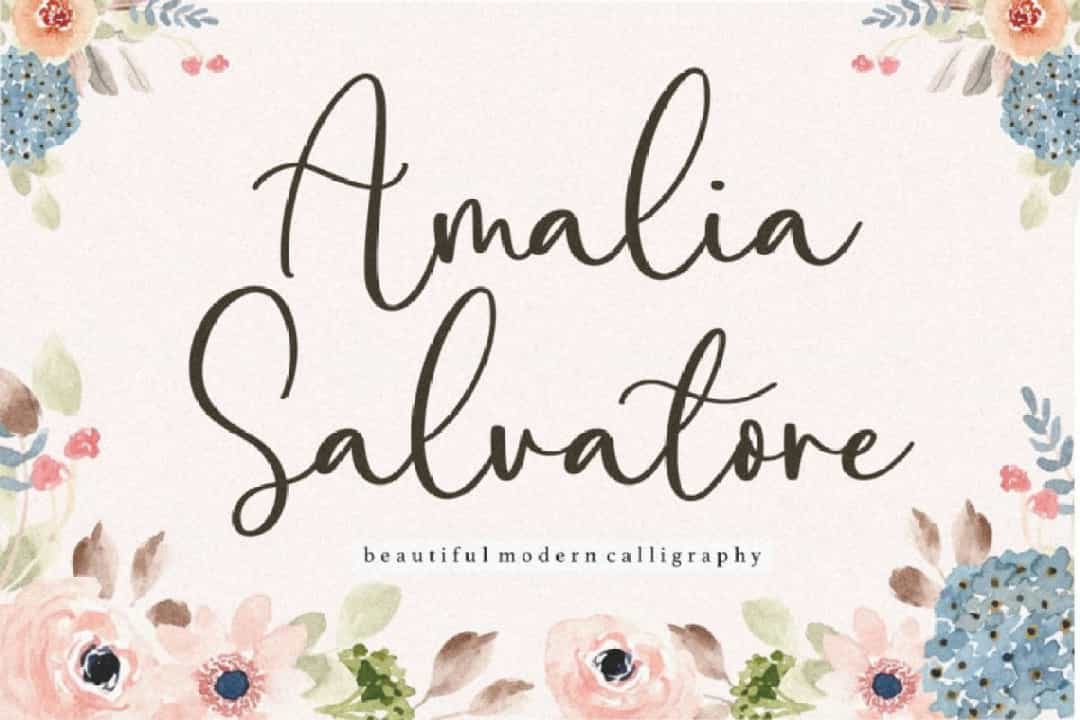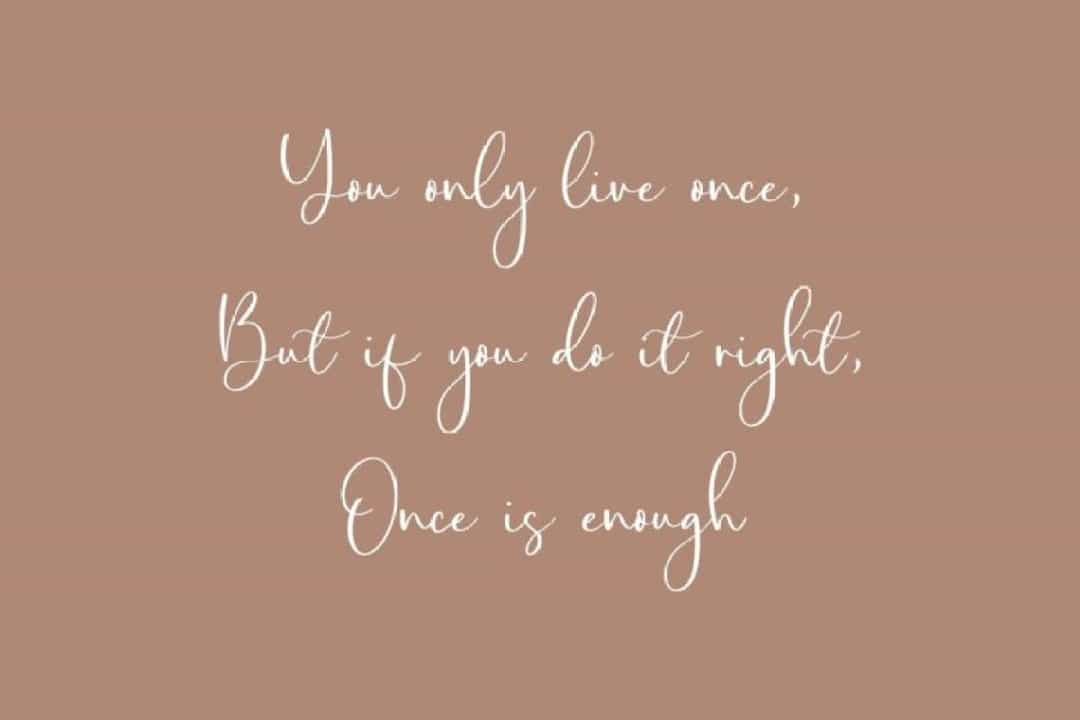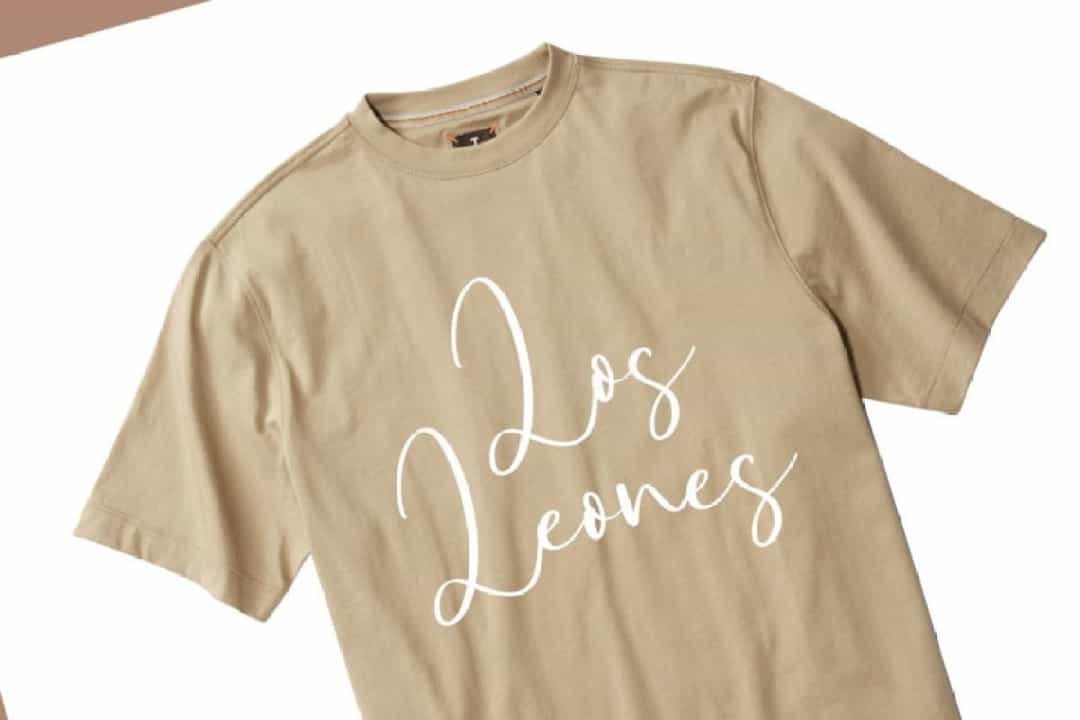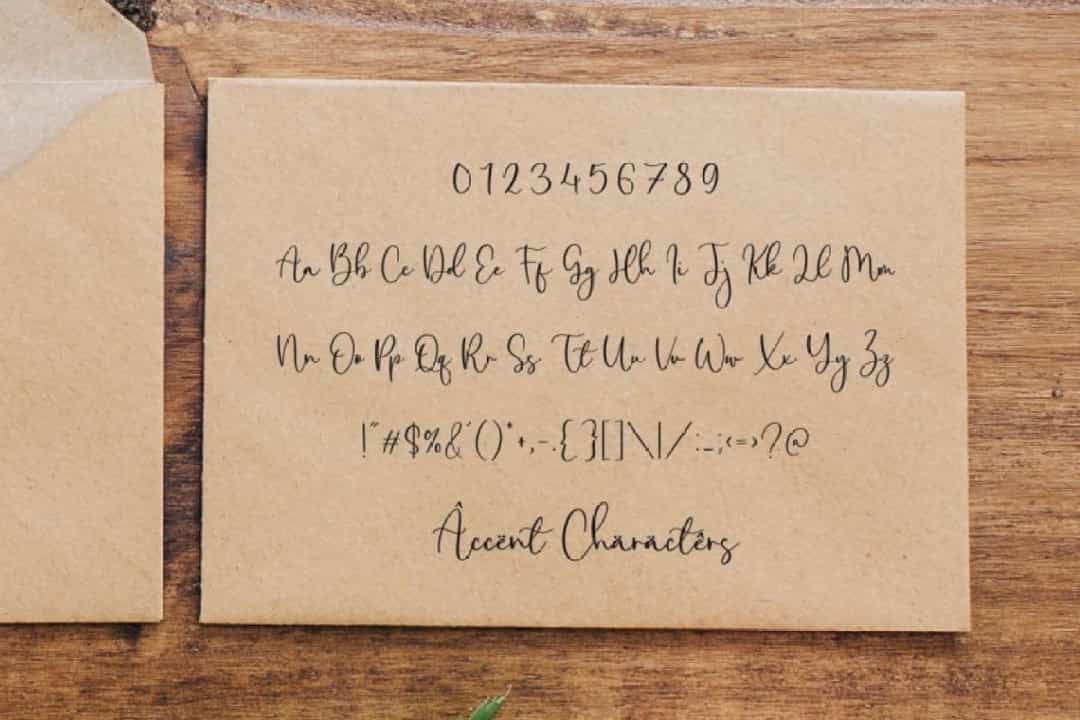
Amalia Salvatore font is here! A beautiful and distinctive handwritten script typeface that offers natural ligatures makes this font suitable for invitation cards, printed quotes, product packaging design, social media Web You pages and much more! We hope that our customers take pleasure in using Amalia Salvatore font!